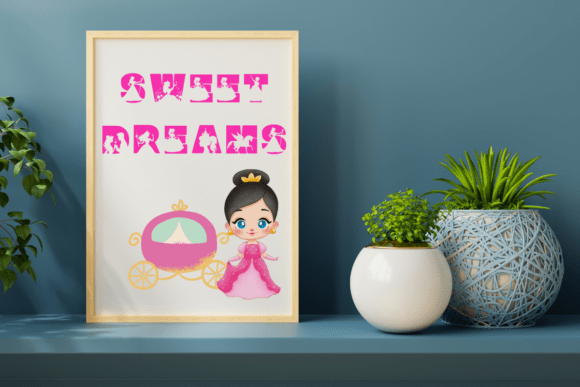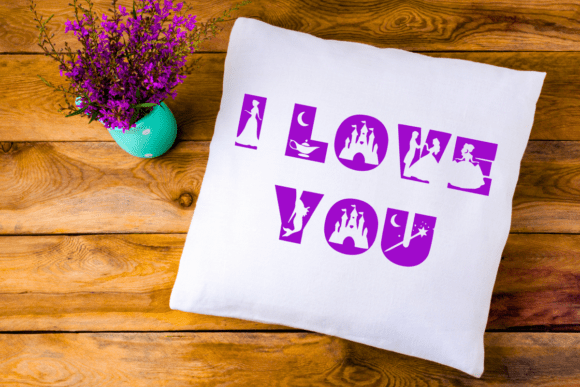
Princess Font
Let your designs reign supreme with Princess Font – a whimsical typeface filled with magical silhouettes of princesses, castles, fairies, and enchanting moments. Each letter is a fairytale scene, making this font ideal for children’s books, birthday invites, fantasy-themed crafts, and royal party décor. It’s playful, girly, and absolutely charming!